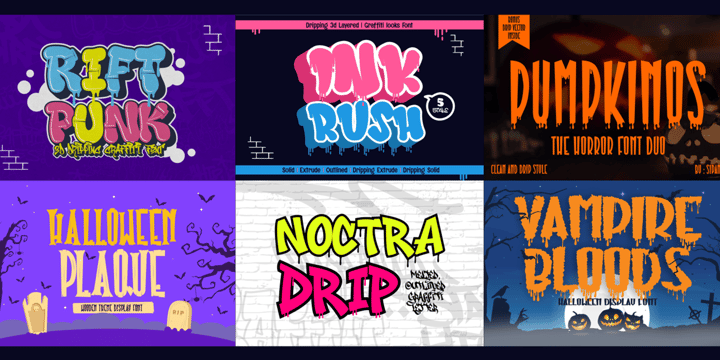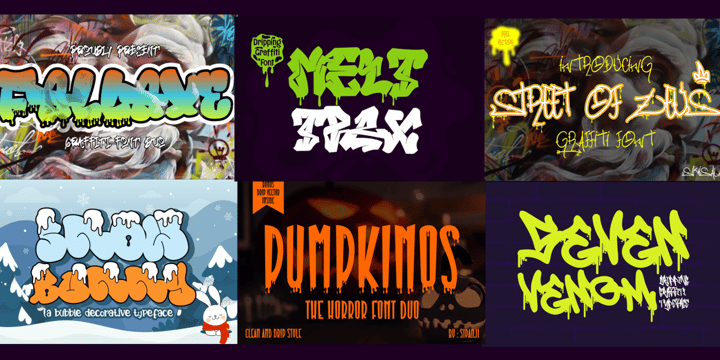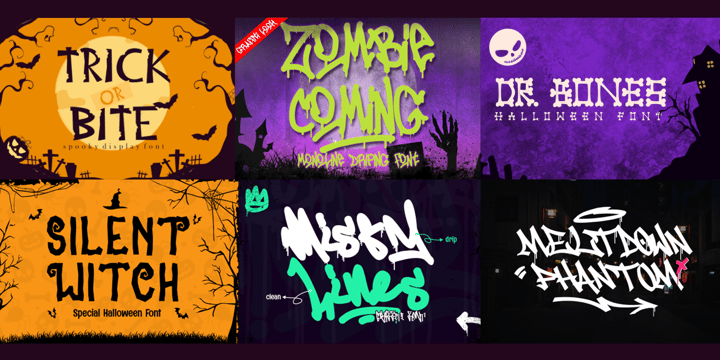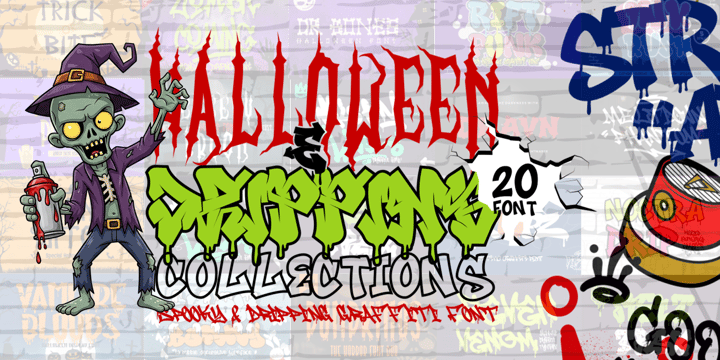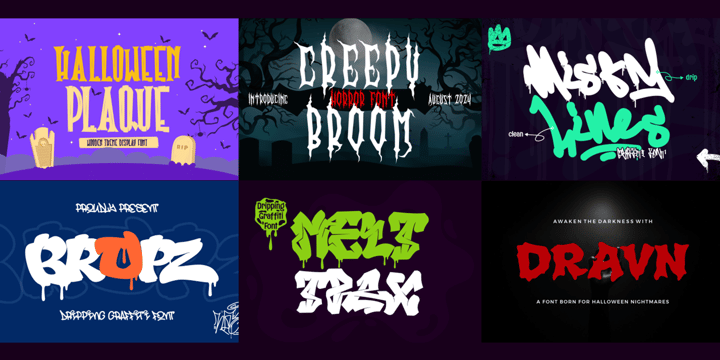
Halloween and Dripping Font Collections
Get ready to transform your designs with this massive collection of 20 Halloween and dripping fonts that will infuse your projects with a unique and unforgettable spooky charm. This isn't just a simple font bundle; it's a complete creative toolkit designed to make your work stand out. Whether you're working on posters, T-shirts, Halloween party invitations, greeting cards, stickers, product packaging, social media posts, or digital art, this collection has everything you need to captivate your audience. Each font in this bundle has been uniquely crafted to embody the true spirit of Halloween. From spooky ghosts to creepy monsters, every letter is a piece of art. The dripping blood and goo effects are meticulously designed to look realistic and add strong visual impact, giving your designs a sense of eerie playfulness that is both fun and unsettling. You'll find a variety of styles within the bundle, including classic horror fonts, playful cartoon styles, and subtle, creepy hand-drawn typefaces. This collection is a must-have for anyone who wants to create impactful Halloween designs. The fonts are not only high-quality but also easy to use, making them accessible for both beginners and seasoned designers. With this bundle, you're not just buying fonts; you're investing in a toolbox that will fuel your creativity for many Halloween seasons to come.